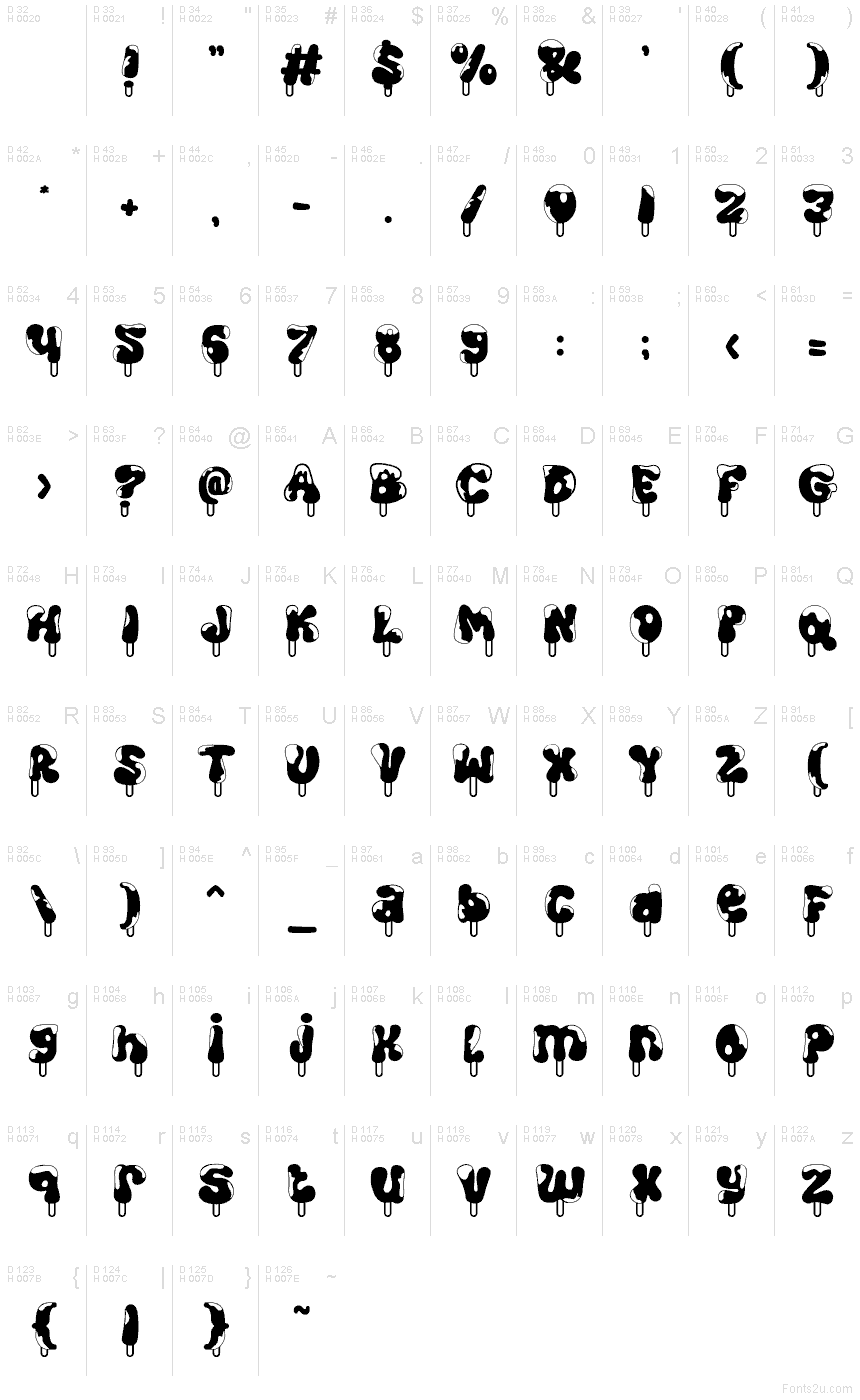
Cold Snowflake Two
Cold Snowflake font by PutraCetol Studio is a free cartoon display font. Bold, quirky, and visually intriguing, this novelty typeface features a dripping effect inspired by melted popsicles. Playful and amusing in design, its characters showcase round shapes and soft edges.
Use in products where an eye-catching approach is key such as comics, children’s books, invitations, greeting cards, coloring book covers, video games or any core element within holiday branding ideas.